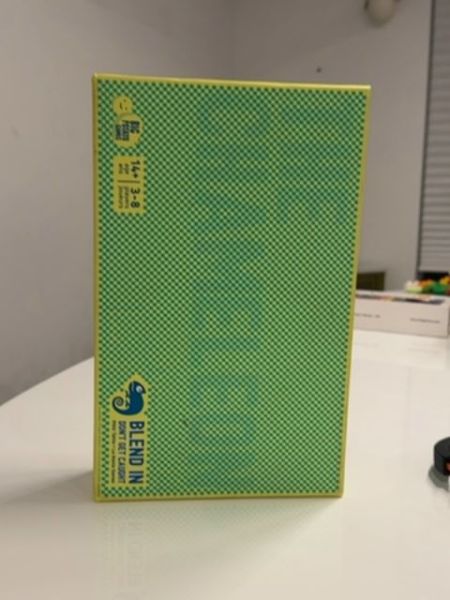
Blend In
Blend In is a product designed for color matching games where players mix and match colors to achieve a certain goal or challenge.
The typography used is bold and sans-serif, designed to be easily readable against the busy checkered background. The font is modern with clean lines, reflecting a contemporary and youthful vibe appropriate for the target audience.
The packaging features a vibrant green and blue checkered pattern, giving it a playful and engaging appearance. The box is sturdy with a matte finish, emphasizing the fun and creative nature of the product.